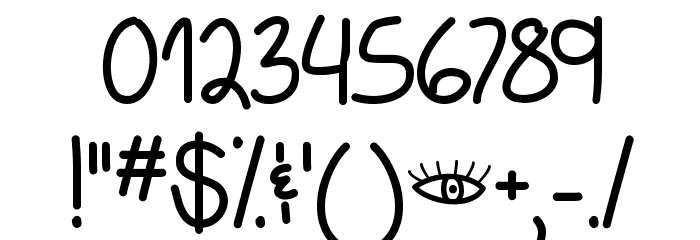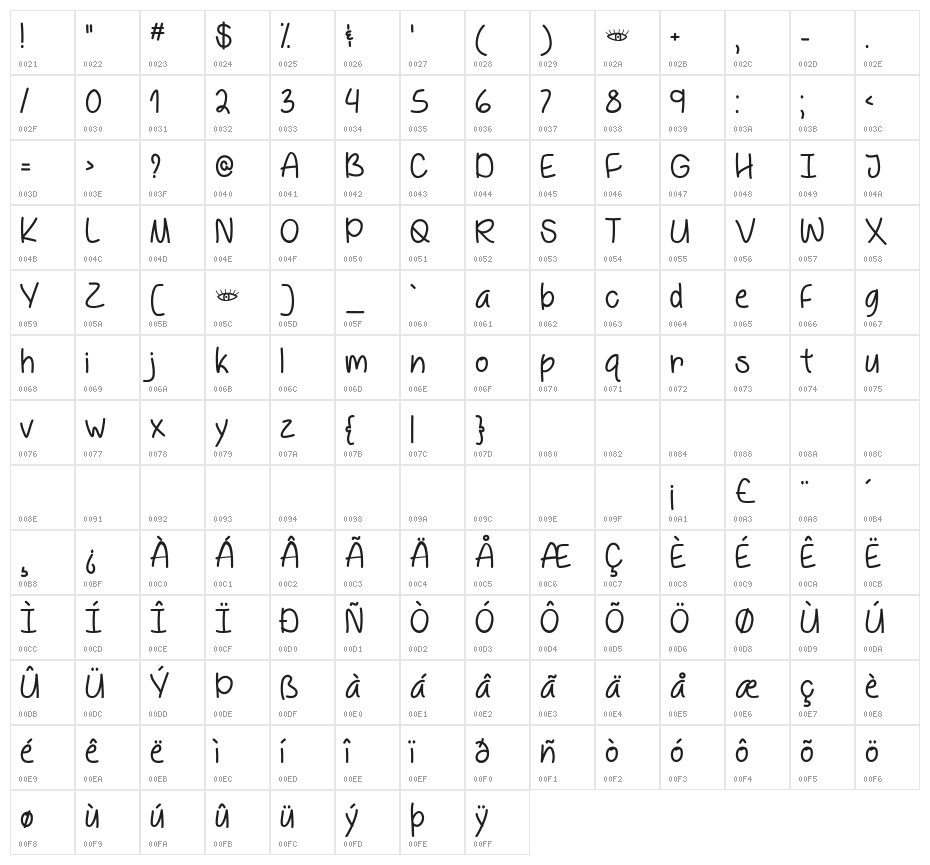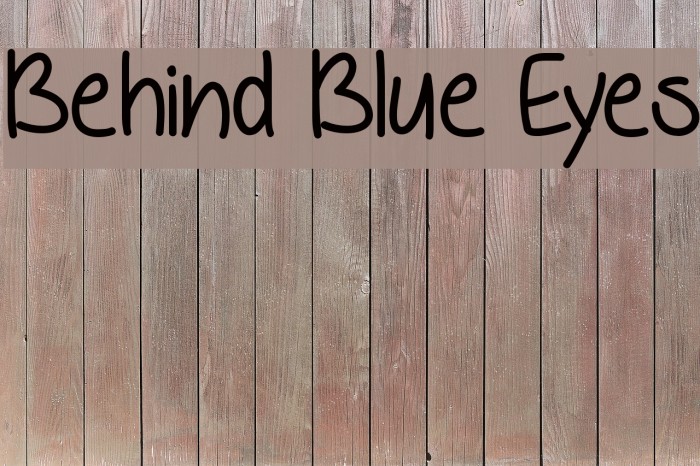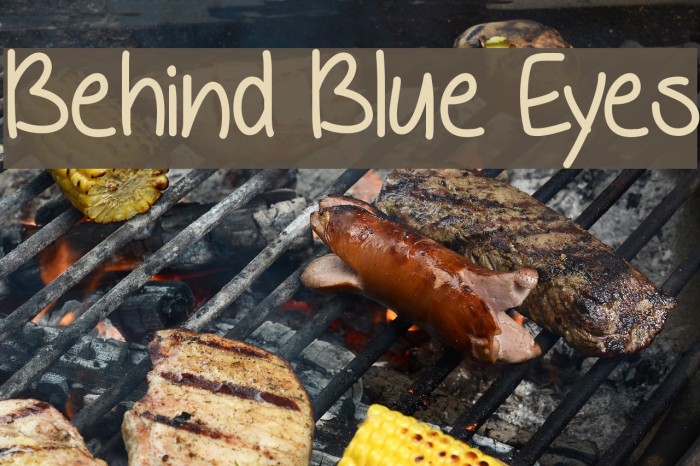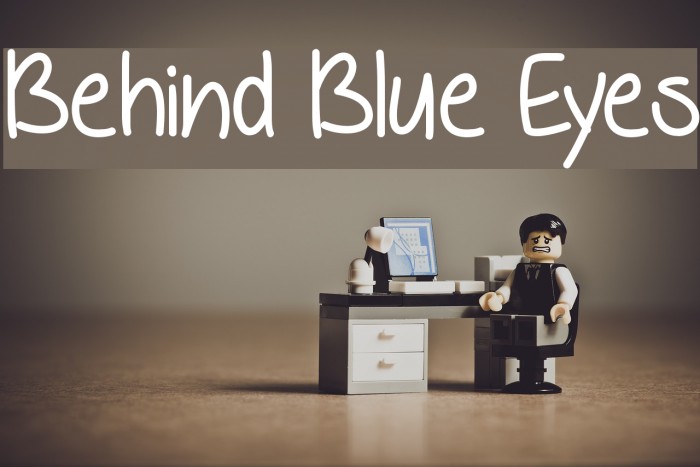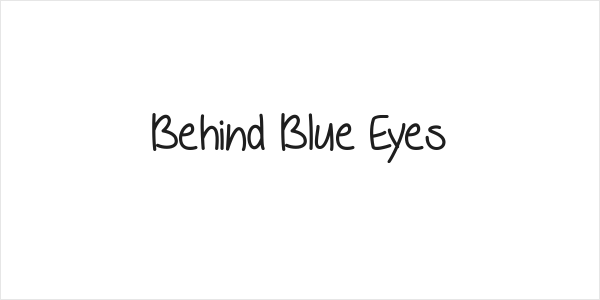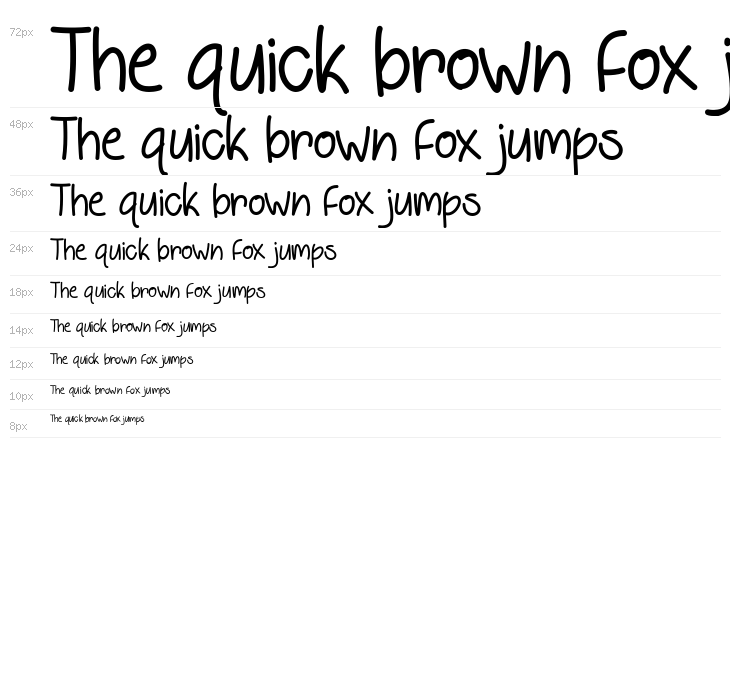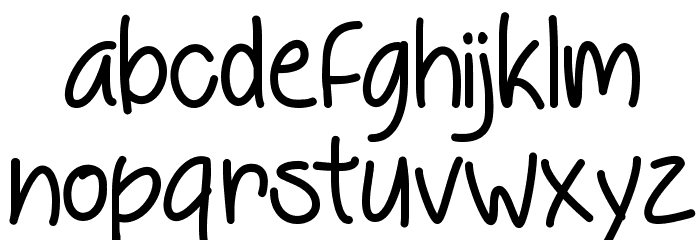
Behind Blue Eyes Font
Behind Blue Eyes Description
This playful and casual font features a handwritten style with a friendly and approachable appearance. The characters are slightly rounded with a consistent stroke width, giving it a uniform look. The uppercase letters are bold and prominent, while the lowercase letters maintain a smooth flow, enhancing readability. Numbers and special characters are designed to match the overall style, ensuring cohesion across all elements. The font's informal nature makes it suitable for projects that require a personal touch or a relaxed vibe.
| Proposed Projects | Ideal for greeting cards, children's books, informal invitations, and playful branding. |